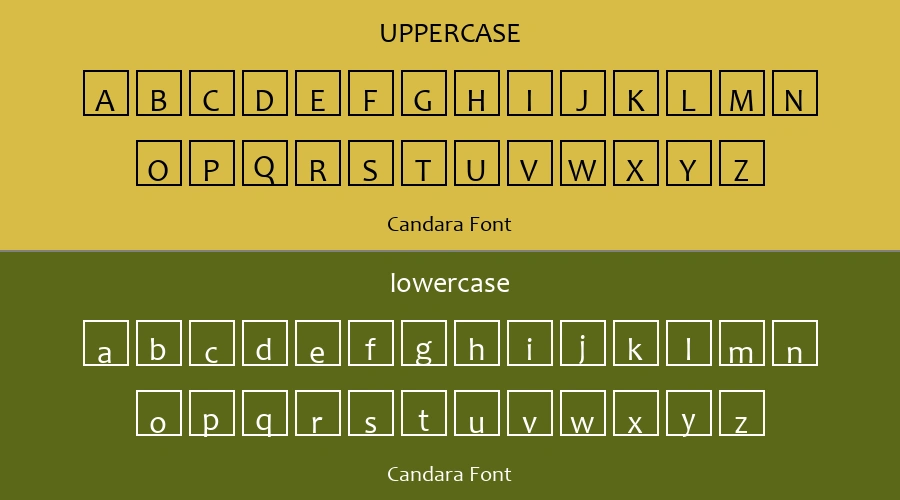
About Candara Font
Designed with precision, Candara Font merges expressive energy with technical precision in every character. This versatility makes it particularly effective for packaging hero, where legibility and academic acceptance directly impact communication quality. Each letterform demonstrates meticulous craftsmanship.
Technical excellence shines through elements like precise alignment and pi characters, enhancing typographic versatility. In body text settings, Candara Font proves its worth through superior brand recognition. The thoughtful execution of ascender height and industrial acceptance ensures professional results.